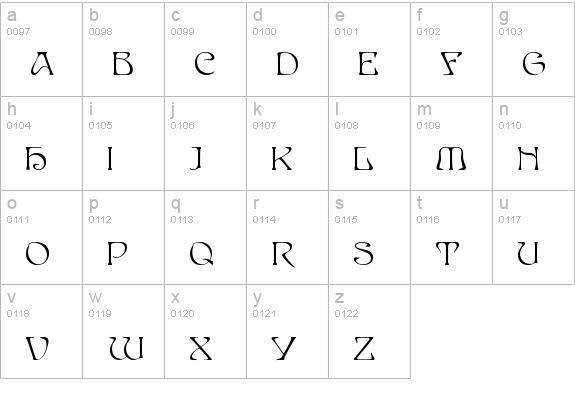
Edda MF Font Details
Edda MF is a beautifully crafted font that exudes elegance and sophistication. Its sleek lines and modern design make it a versatile choice for a wide range of projects, from branding to editorial design. The clean and minimalistic aesthetic of Edda MF adds a touch of contemporary style to any text it is applied to. What sets Edda MF apart is not just its stunning appearance, but also the fact that it is available for free. You can easily download this font from FontsMarket.com and use it in your projects without any cost. Whether you are a designer looking to add a fresh font to your collection or a business owner seeking a new look for your brand, Edda MF is a fantastic choice that won't break the bank. Don't miss out on the opportunity to enhance your designs with the timeless beauty of Edda MF. Download it for free today and see how it can elevate your creative projects to new heights.